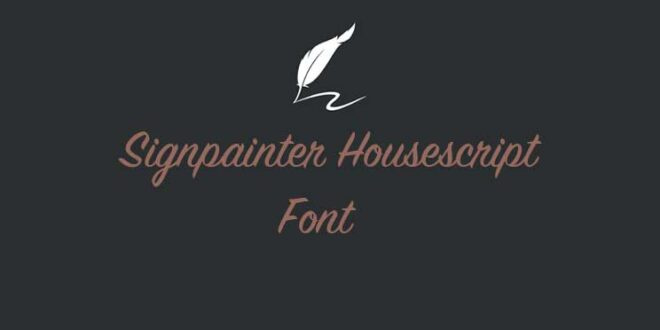
Signpainter Housescript Font
Signpainter Housescript Fontβs breathtaking ink appeal coupled with the cut of its strokes make each letter unique, making them ideal for mixing and matching.